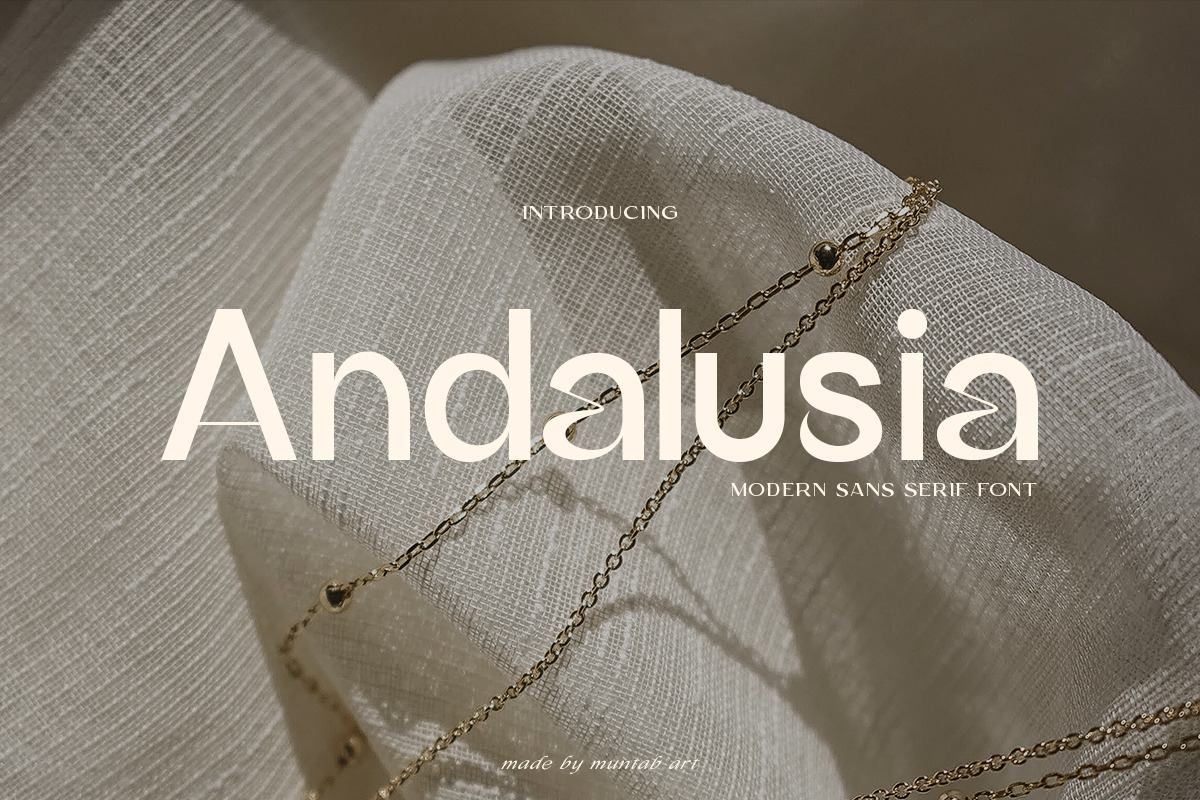
Andalusia Modern Sans Serif Font Free Download is a clean and sophisticated typeface that blends minimalism with subtle elegance. Designed for contemporary creatives, this font is ideal for branding, editorial design, websites, social media graphics, product packaging, and upscale advertising.
With smooth lines, geometric precision, and a stylish presence, Andalusia adds a professional touch to any project. Its modern sans serif form ensures excellent readability while maintaining a sleek, polished aesthetic. Whether you're building a fashion label, tech brand, or minimalist portfolio, Andalusia delivers clarity and class.